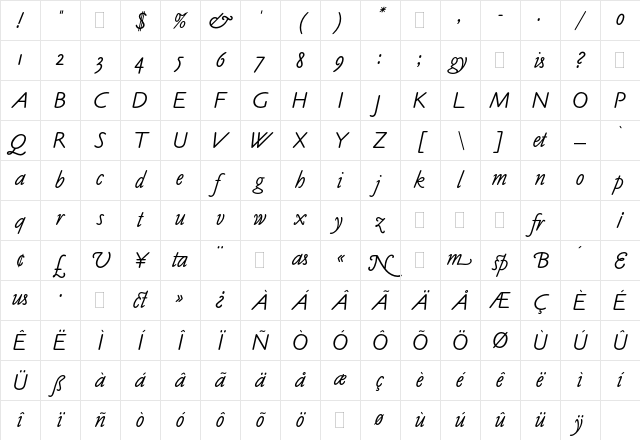
Claude Sans Italic Plain
Complete Claude Sans Italic Plain glyph index. Displaying only characters natively supported by Claude Sans Italic Plain font.
Design Context for Claude Sans Italic
Claude Sans Italic is a composed and adaptable typeface that performs quietly and consistently across a wide range of design contexts. The slanted form adds forward momentum and visual energy.